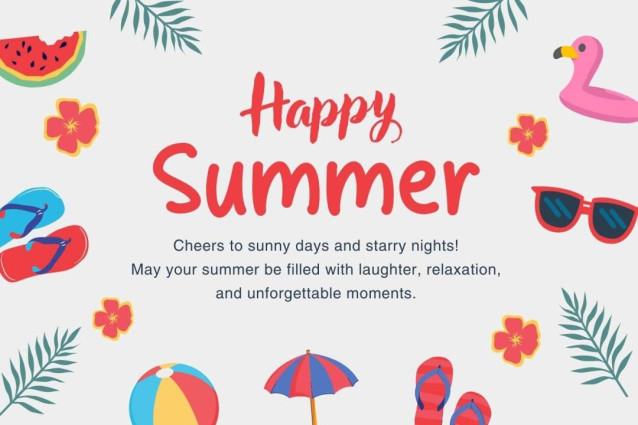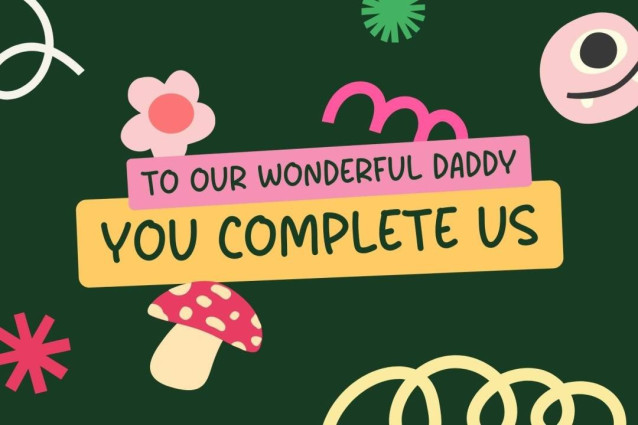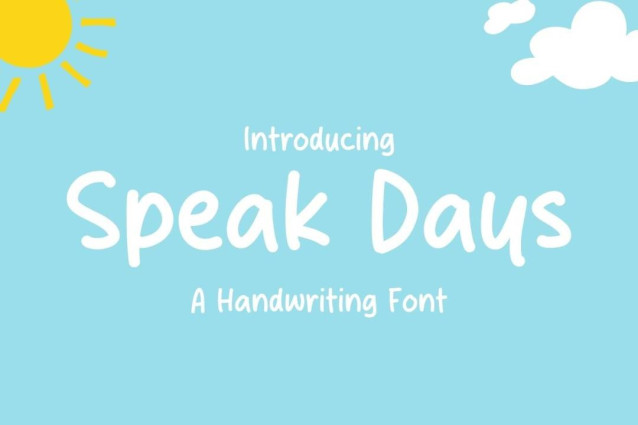
Speak Days Font
Speak Days Font is a simple and friendly handwritten font. Its natural and unique style makes it incredibly fitting to a large pool of designs. The only limit is your imagination!